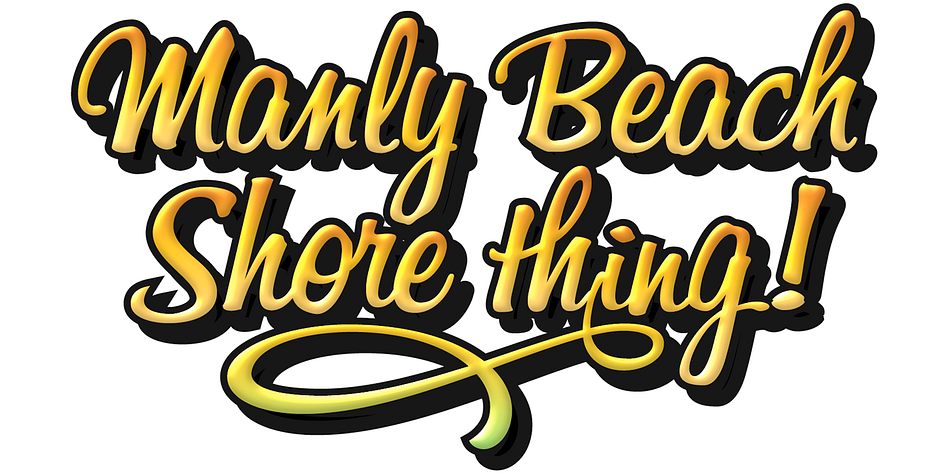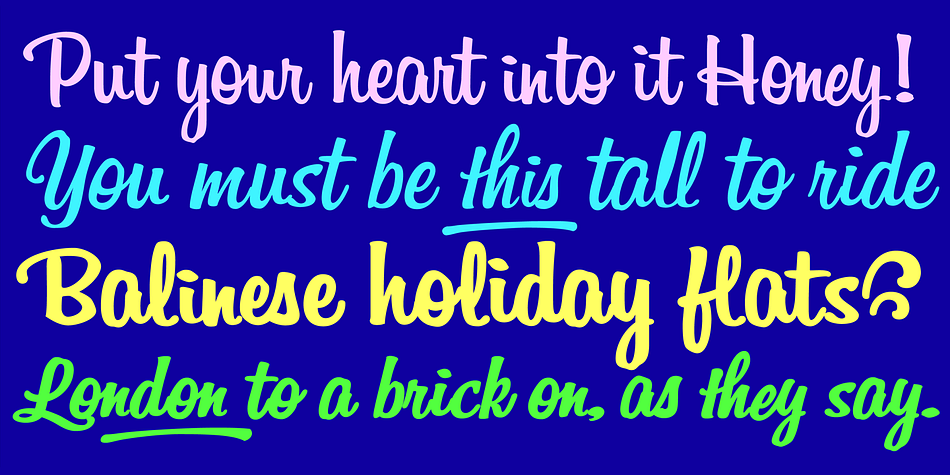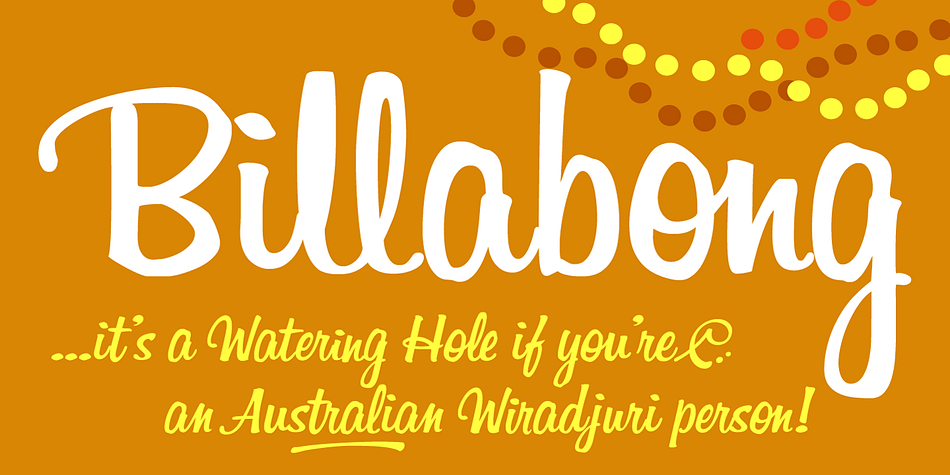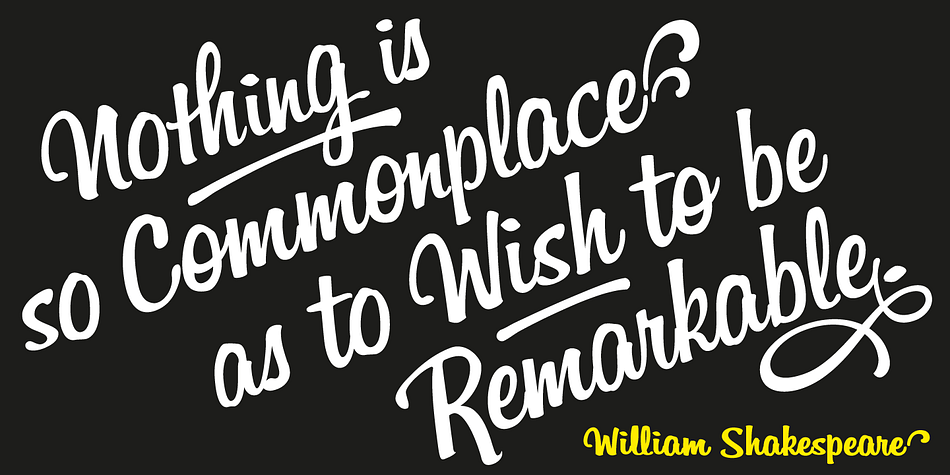
Billabong is a brush script font family. This typeface has four styles and was published by Type Associates.
Billabong has its origins in the handlettered 40’s and 50’s script headings that seem to have endured especially in signage when style doesn’t matter too much. Unlike today’s scripts Billabong is tightly spaced and Opentype font features allow for a myriad of ligatures to improve fit and evenness of color. Users can select their choice of strokes, ornaments and ending flourishes for added emphasis and style.
Oh, and yes – it is the font used on the Instagram logo. Smart choice!